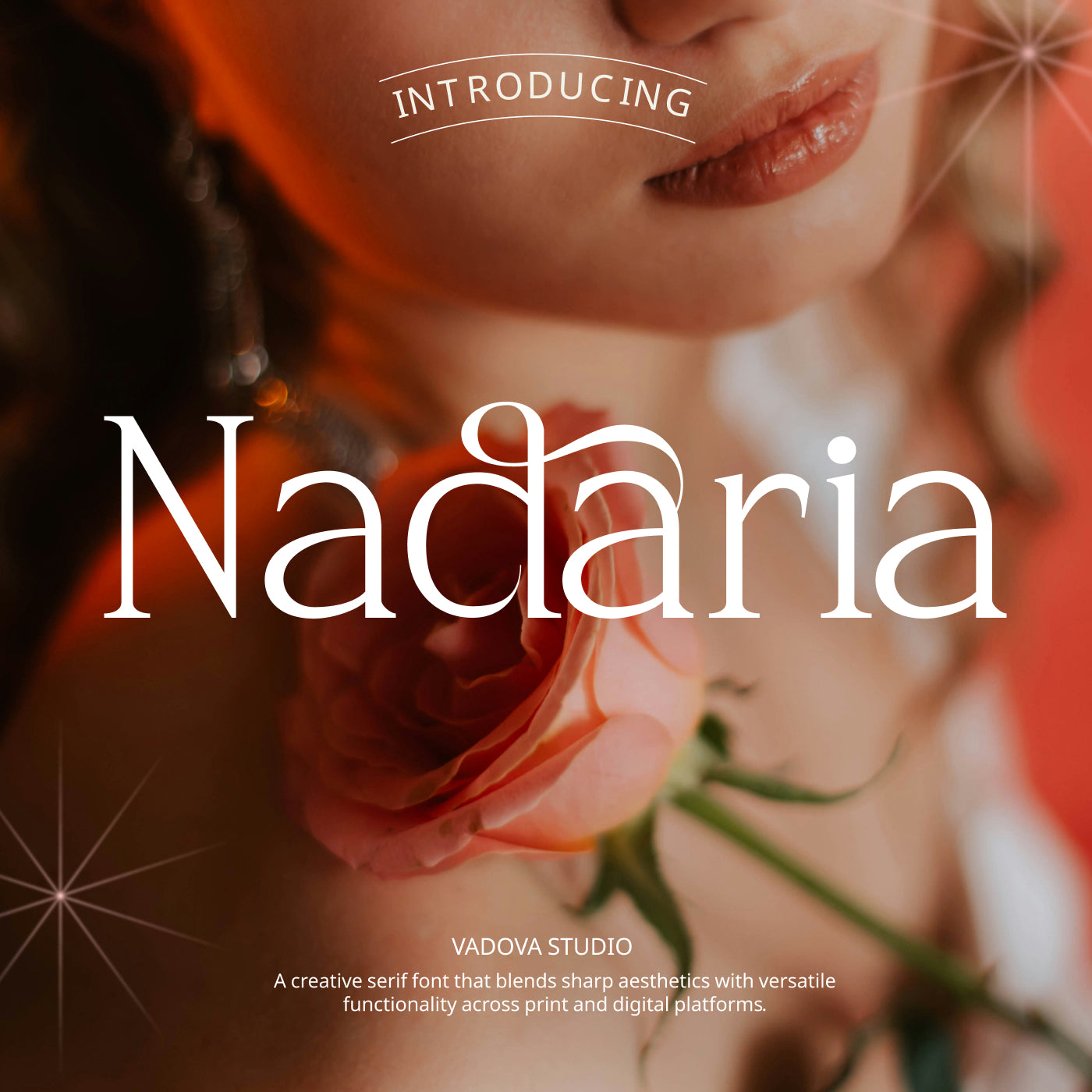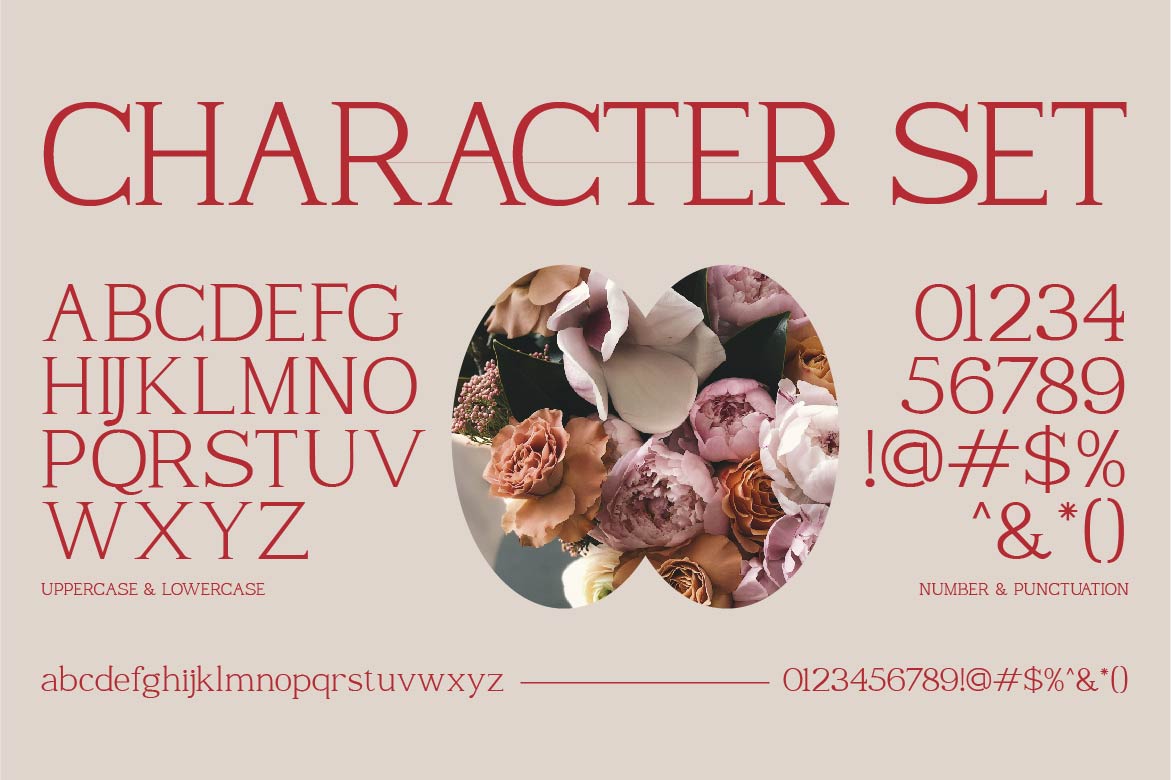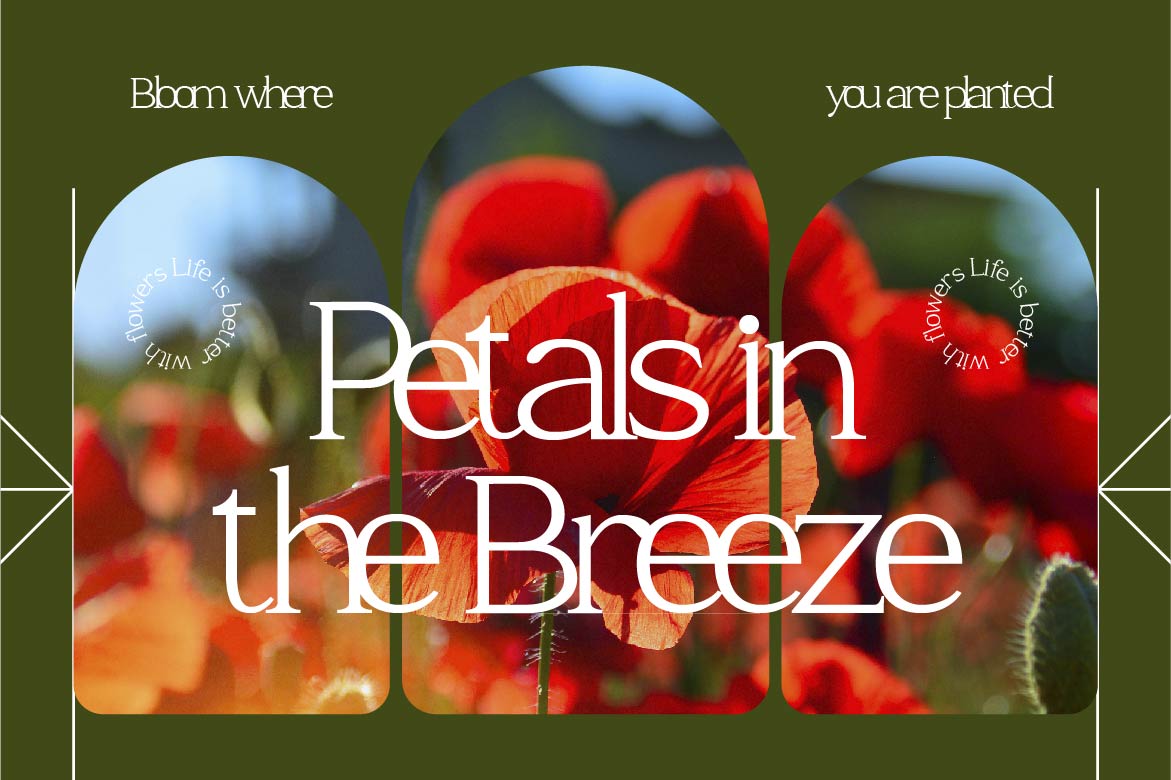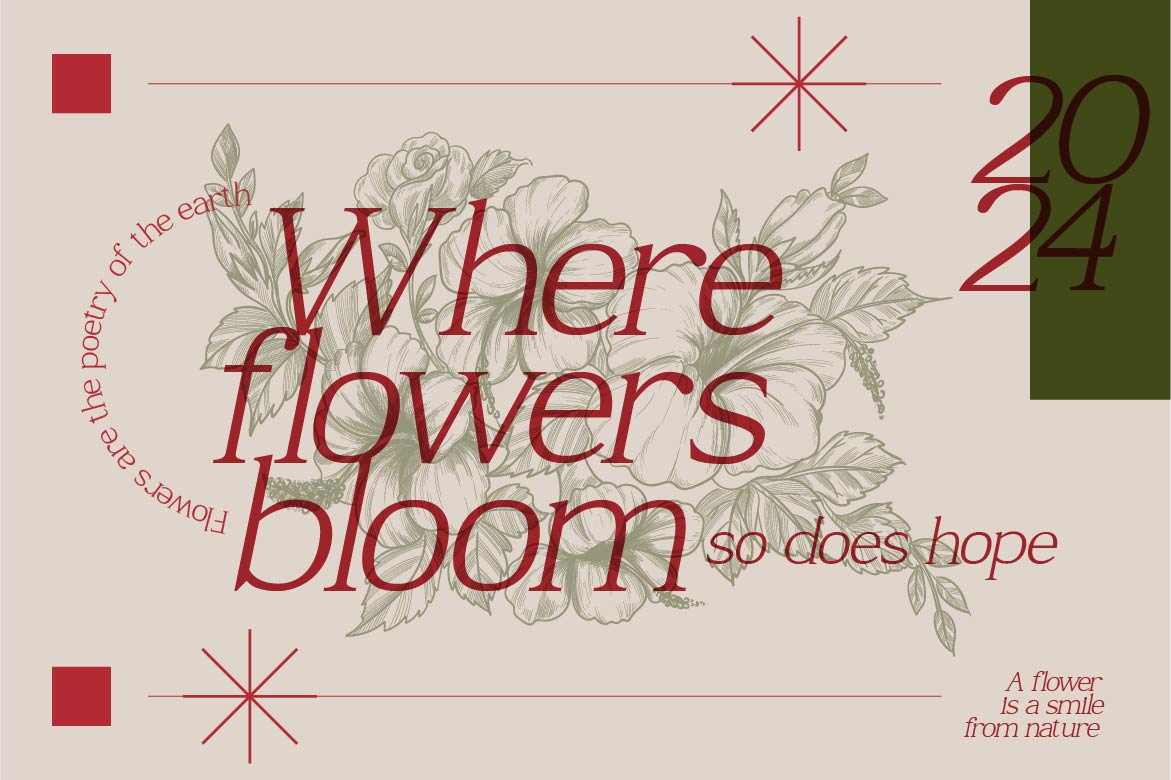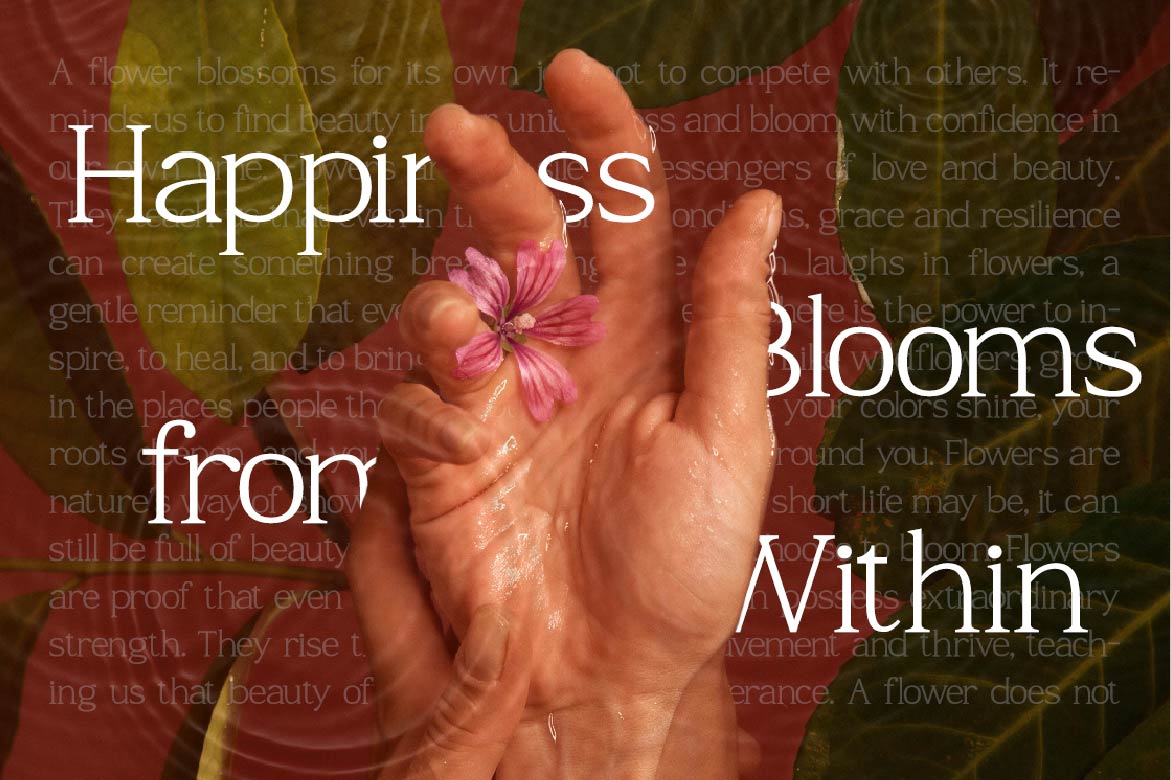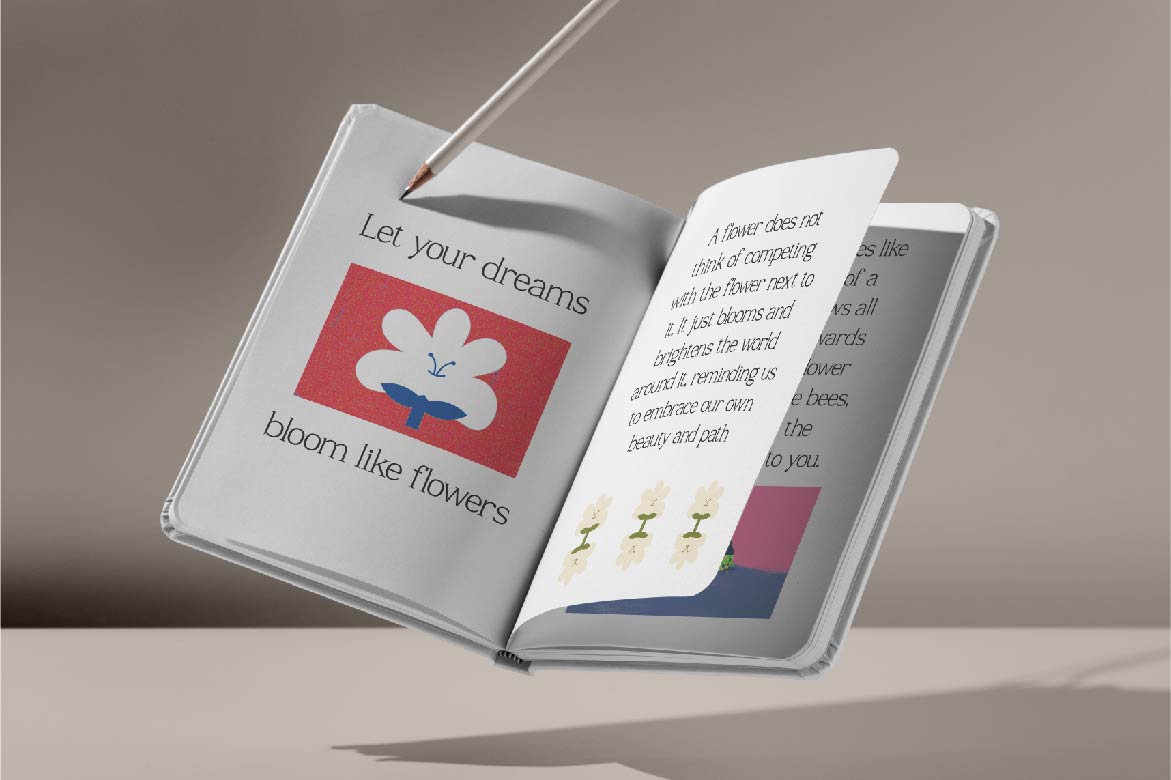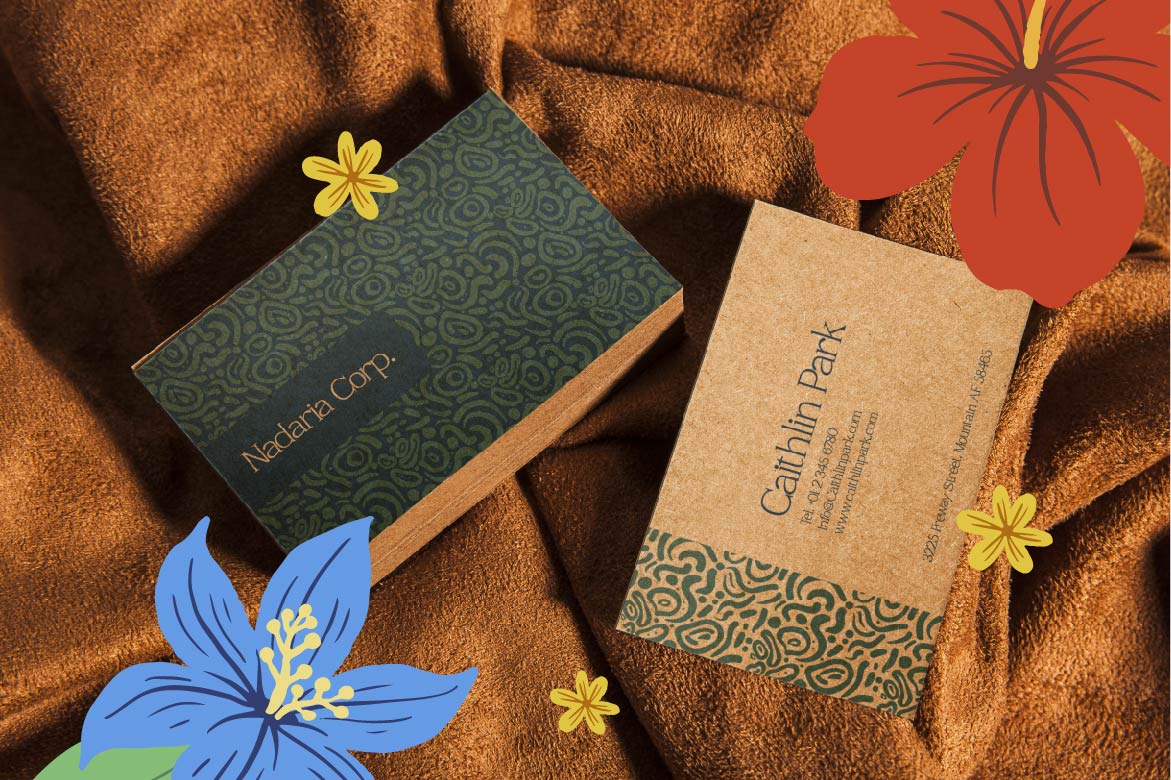
Nadaria Elegant Serif Font
Nadaria is a refined serif font inspired by nature’s elegance and floral beauty. With its graceful letterforms and delicate botanical accents, this typeface is ideal for creative branding, packaging, wedding stationery, and graphic design with a nature-inspired touch. Nadaria adds poetic sophistication and organic warmth to every project, making it a perfect fit for designers seeking harmony between classic typography and artistic natural elements.
Nadaria Elegant Serif Font is a refined serif typeface featuring graceful letterforms and delicate botanical accents. It is available in TTF, OTF, and WOFF formats, includes uppercase and lowercase characters, as well as numerals and punctuation.